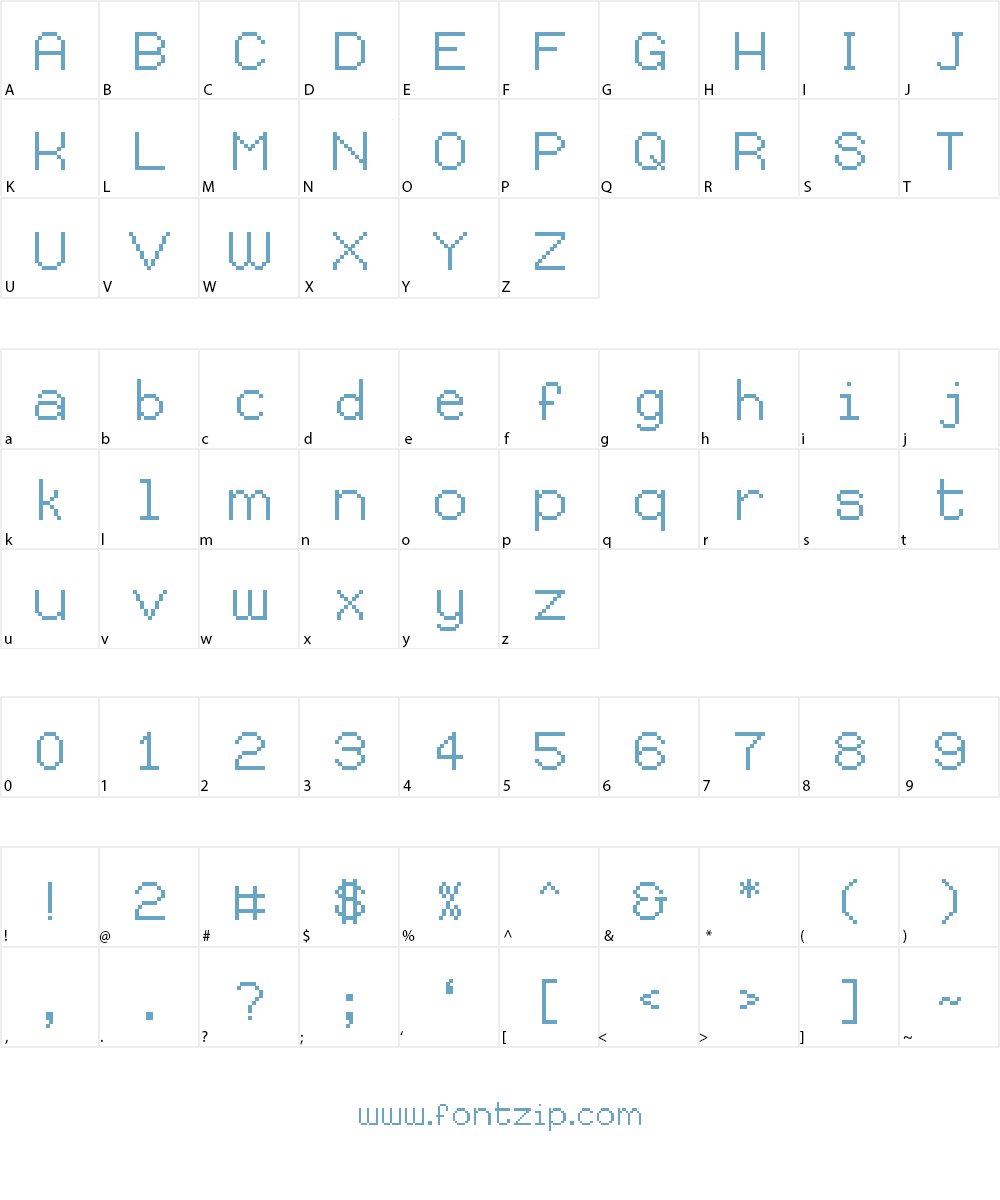
CHMC Pixel is a sans-serif bitmap font so you tought you can play with your friend.
Kerning is restricted to full pixel increments to give it that authentic pixel font look.